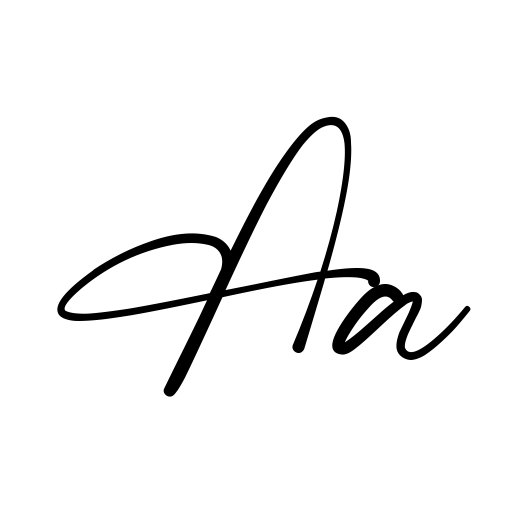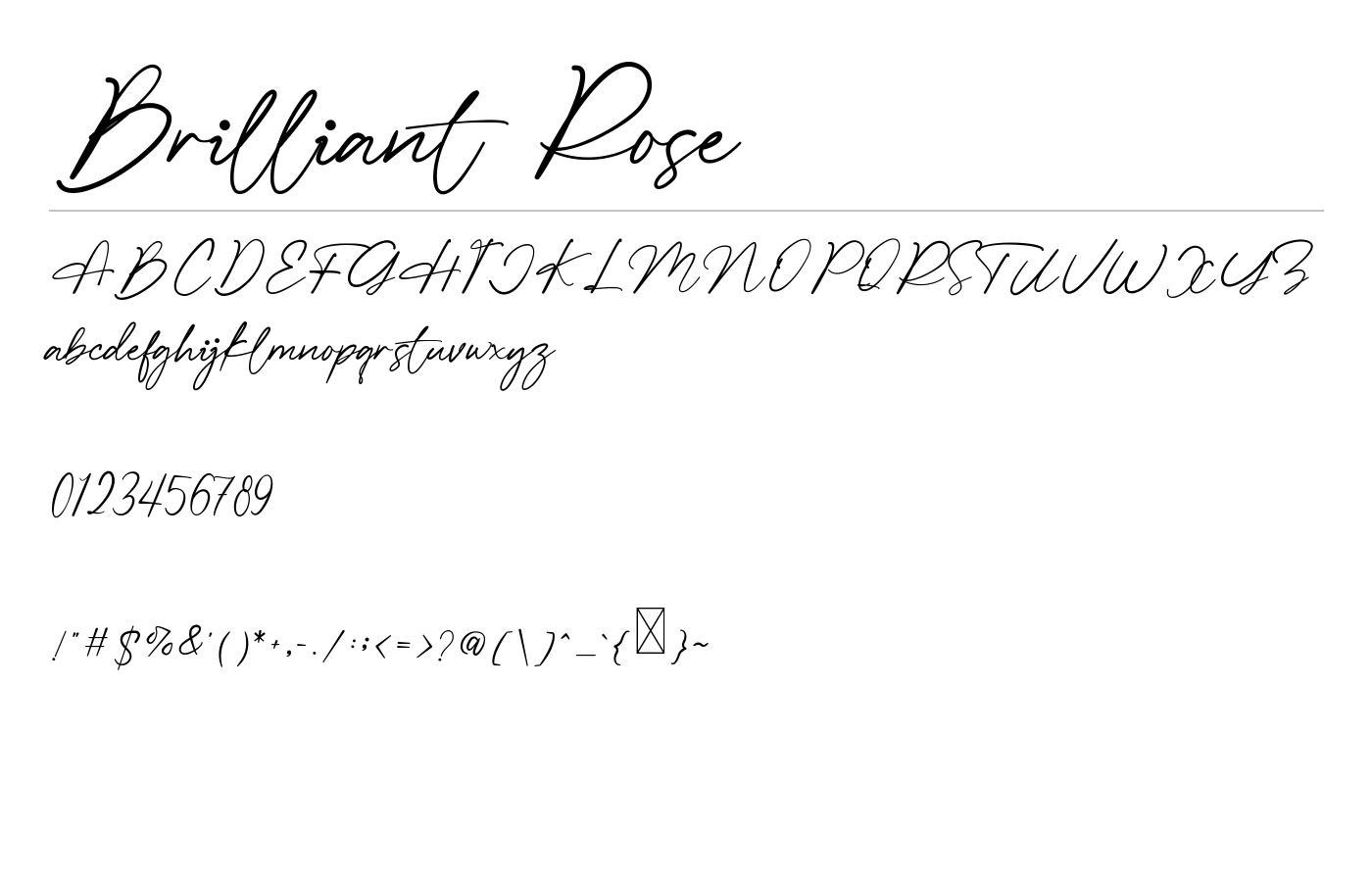
Brilliant Rose is a delicate, elegant script font with a handwritten feel, featuring slender, flowing strokes and a graceful, slightly informal style. Its light weight and airy spacing make it perfect for adding a personal, sophisticated touch to invitations, branding, and stylish packaging, where a refined yet approachable look is desired. This font shines in designs that seek to convey elegance and charm with a modern, feminine flair.
Brilliant Rose Font
About Brilliant Rose Font